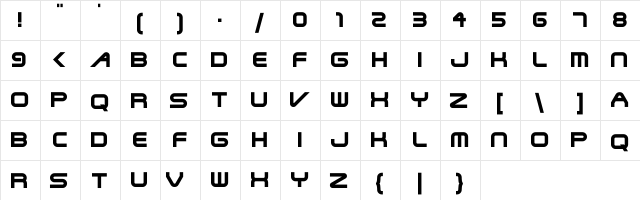
Beaumont Regular
Design Context for Beaumont Typeface
Beaumont is a composed and adaptable typeface that performs quietly and consistently across a wide range of design contexts.